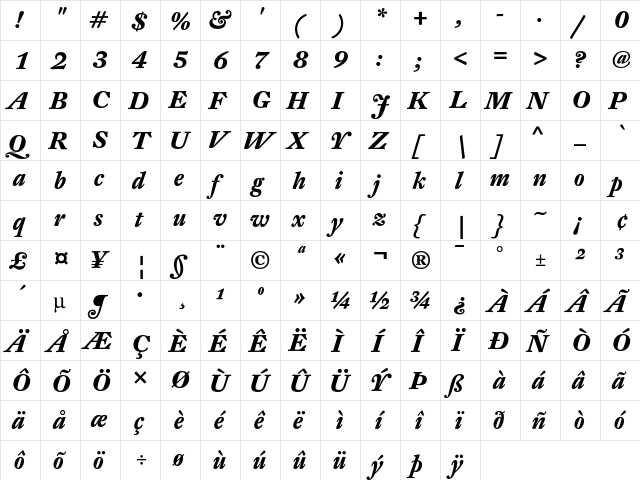
DTL Fleischmann T Bold Italic Font Preview
DTL Fleischmann T Bold Italic
Design Context for DTL Fleischmann Typeface
DTL Fleischmann takes a measured approach to typography — its balanced proportions and neutral character make it a reliable workhorse for both digital and print work. Its italic angle brings a sense of urgency and motion to the letterforms. Its bold stroke weight gives it real presence on the page.
Pro Tip: Use DTL Fleischmann for emphasis, pull quotes, and subheadings where its slanted energy can add rhythm to the layout.